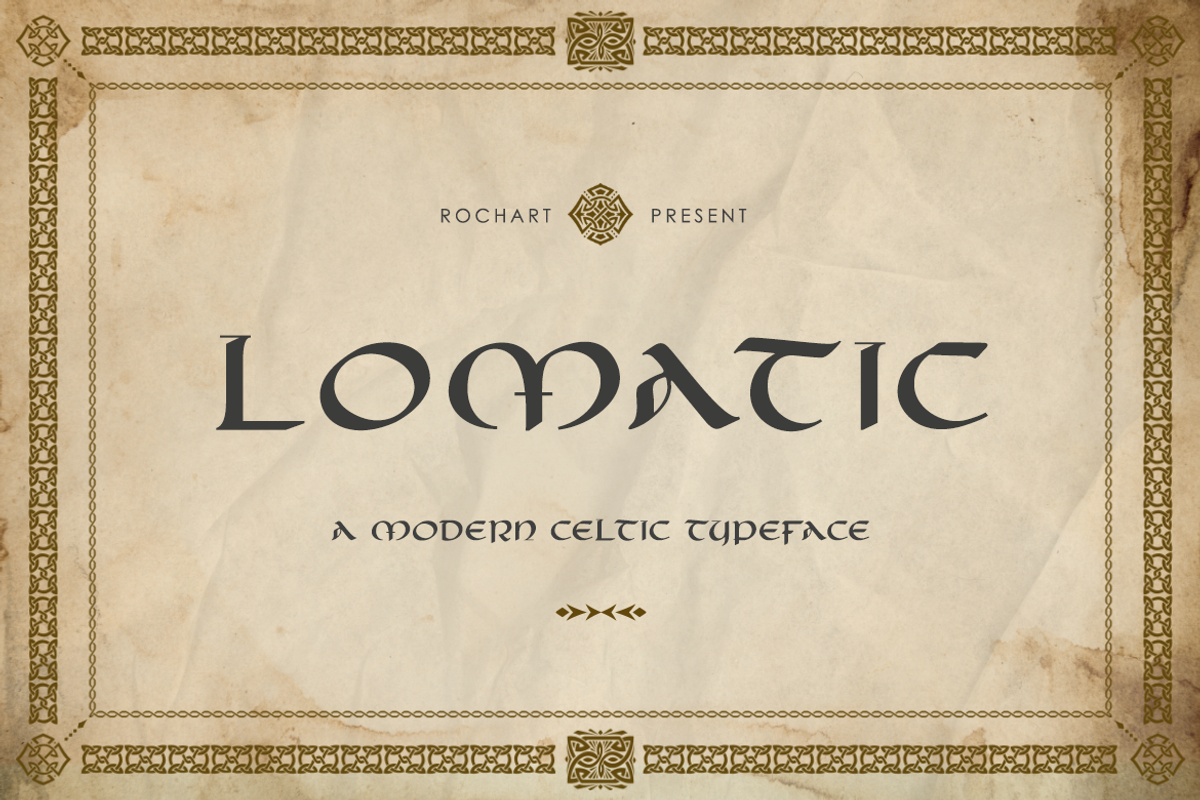
Celtic Typeface || Lomatic Free Download
Celtic Typeface || Lomatic Font Free Download is a beautifully detailed typeface inspired by traditional Celtic scripts and medieval aesthetics. With its intricate curves, decorative serifs, and historic charm, this font is perfect for fantasy book covers, pub signage, tattoo designs, mythology-based branding, and heritage-inspired artwork.
Celtic Typeface || Lomatic Font Free Download captures the essence of ancient storytelling and Gaelic elegance, bringing a mystical and timeless feel to your typography. Whether you're working on themed merchandise, historical graphics, or creative logo designs, this font adds a bold, cultural identity to any project.